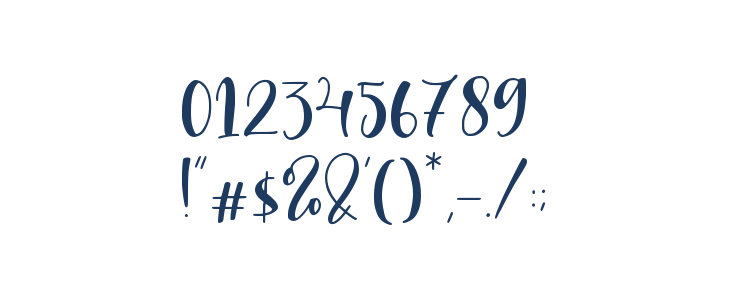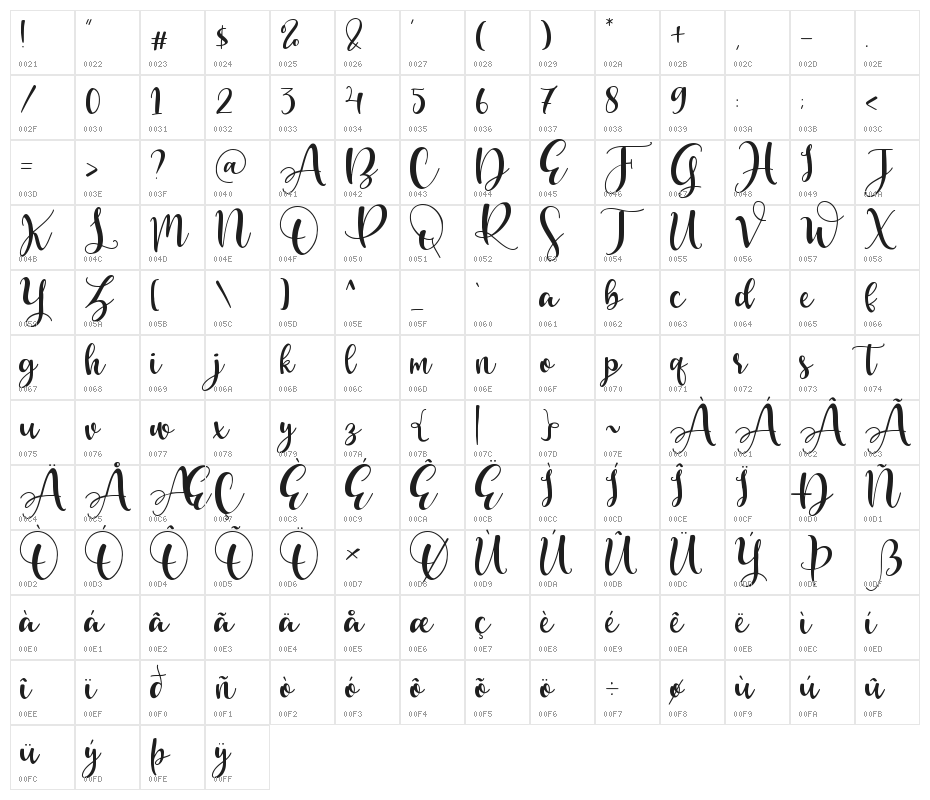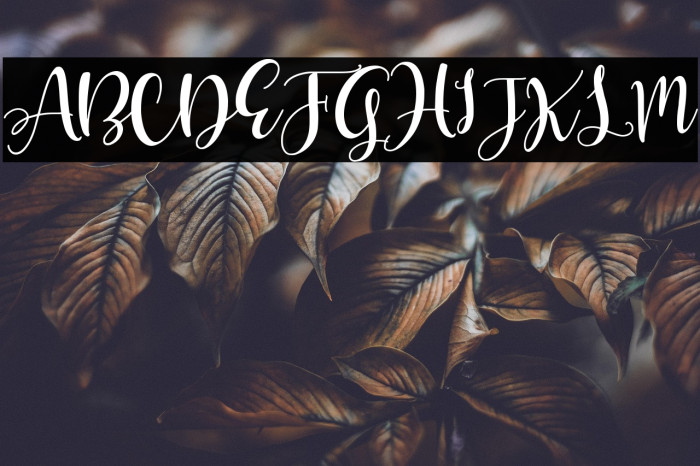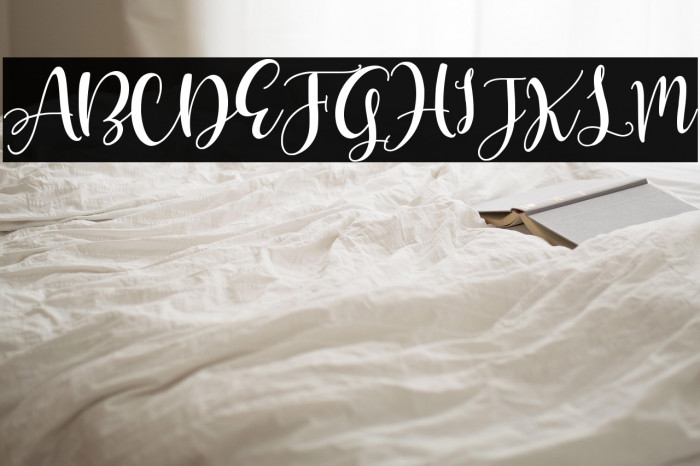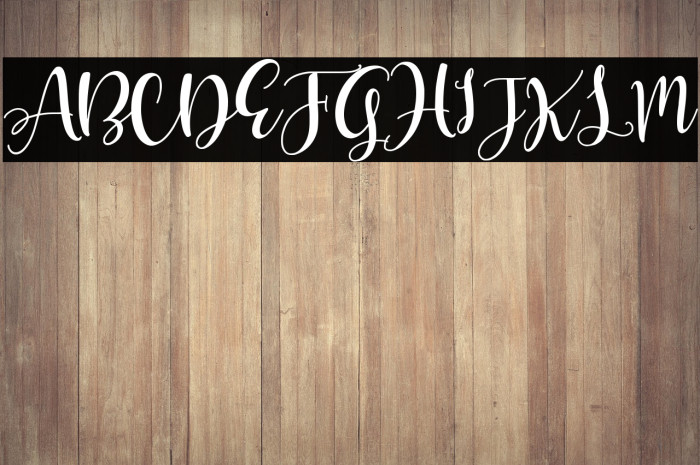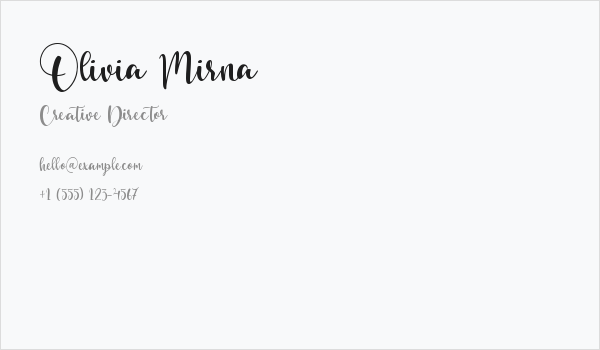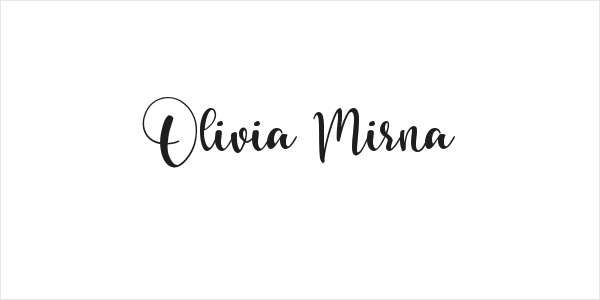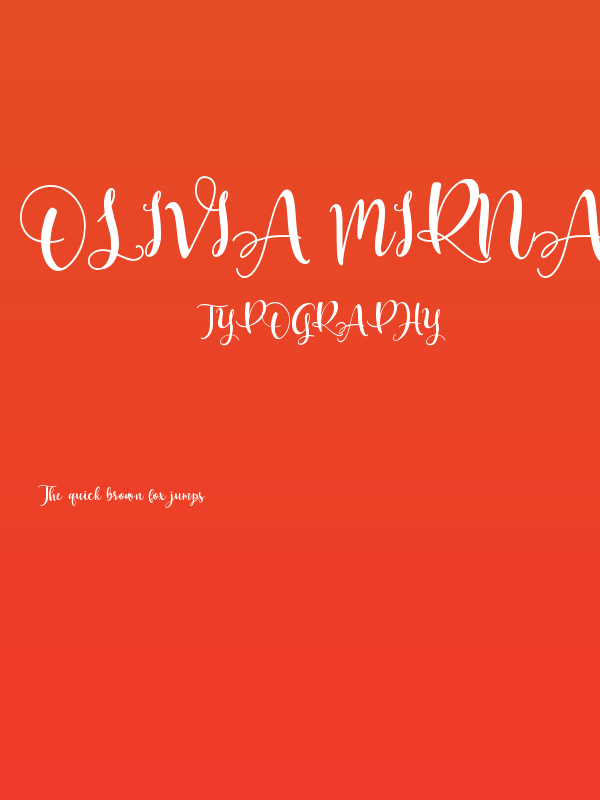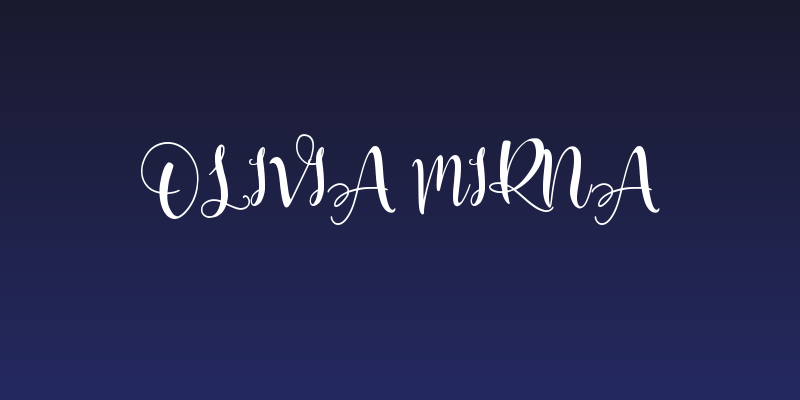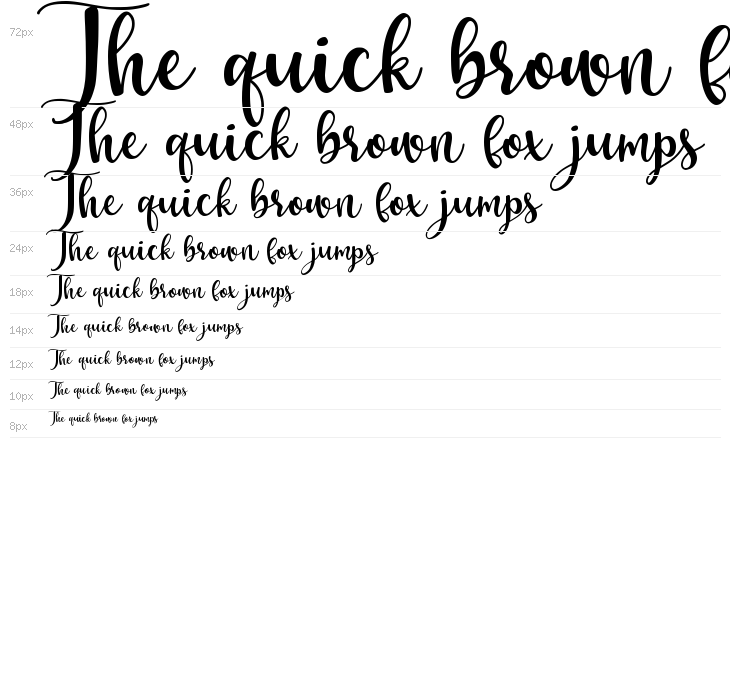
Olivia Mirna Font
Olivia Mirna Description
This font features a lively and elegant script style, characterized by its flowing, cursive letterforms. The uppercase letters are ornate with loops and flourishes, giving them a sophisticated and artistic appearance. The lowercase letters maintain a consistent flow, enhancing readability while preserving the decorative nature. The numerals are bold and slightly italicized, matching the overall style of the alphabet. Special characters are thoughtfully designed to complement the script, adding versatility for various uses. The font exudes a sense of elegance and creativity, making it suitable for projects that require a personal and artistic touch.